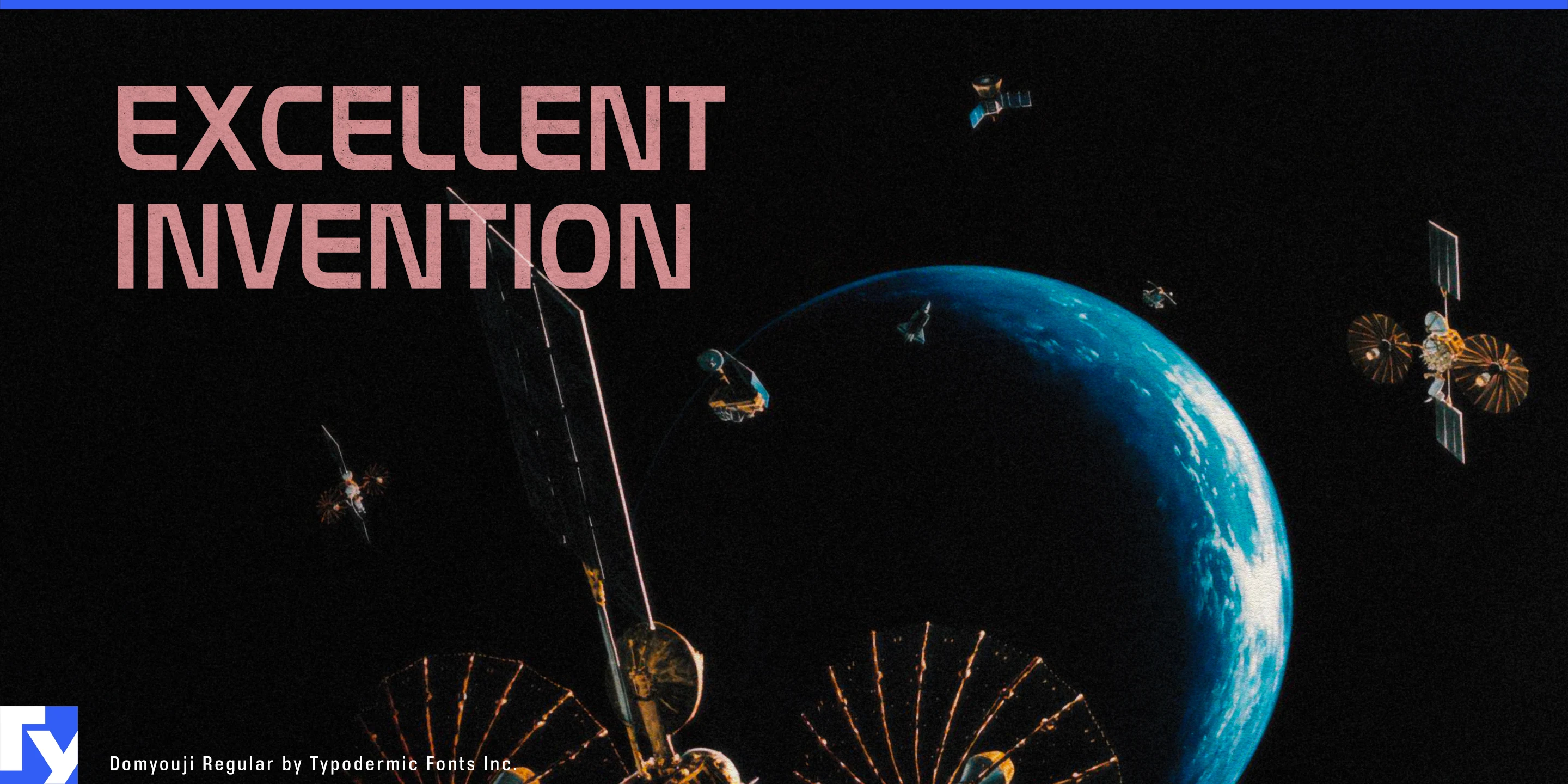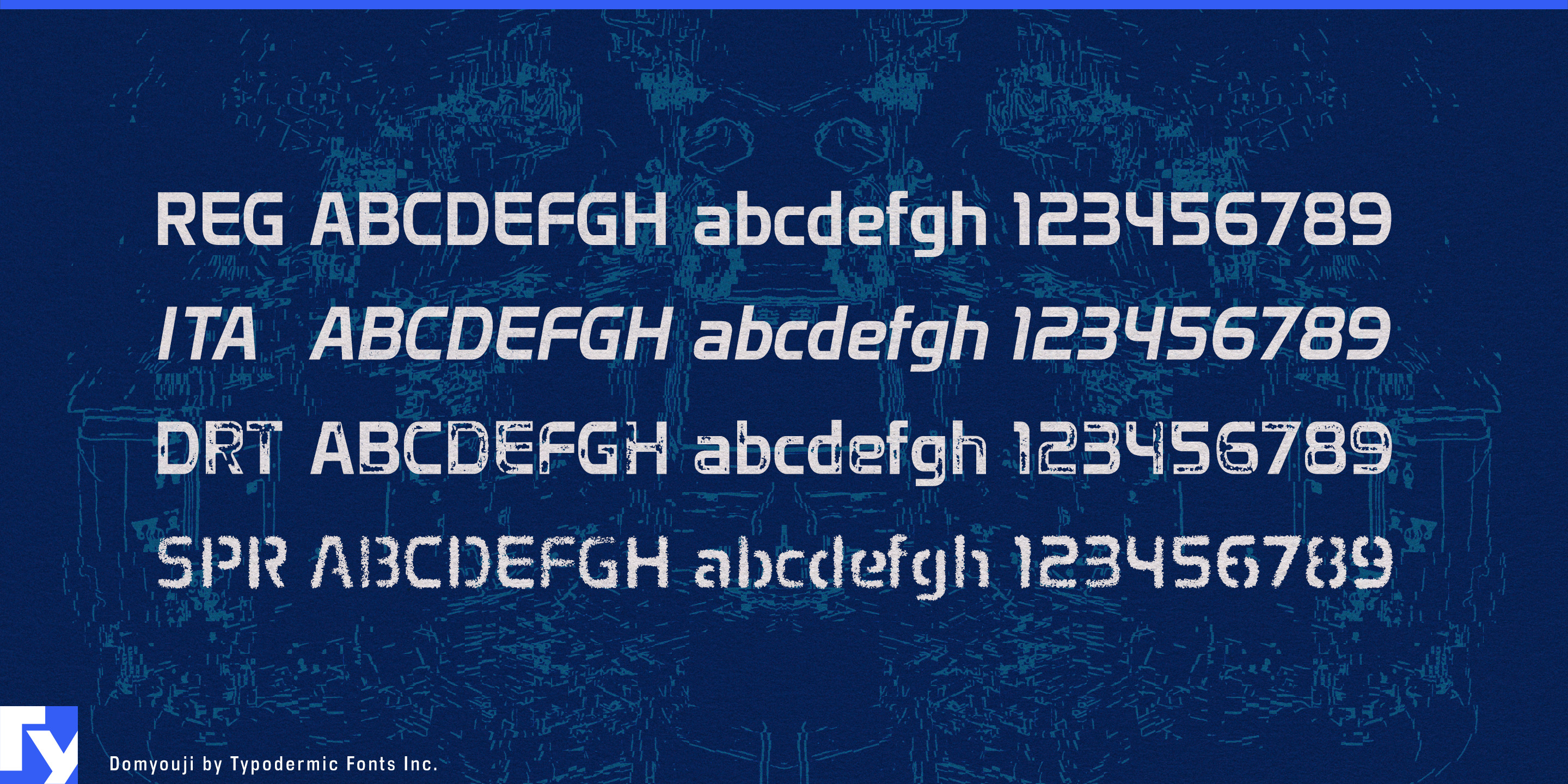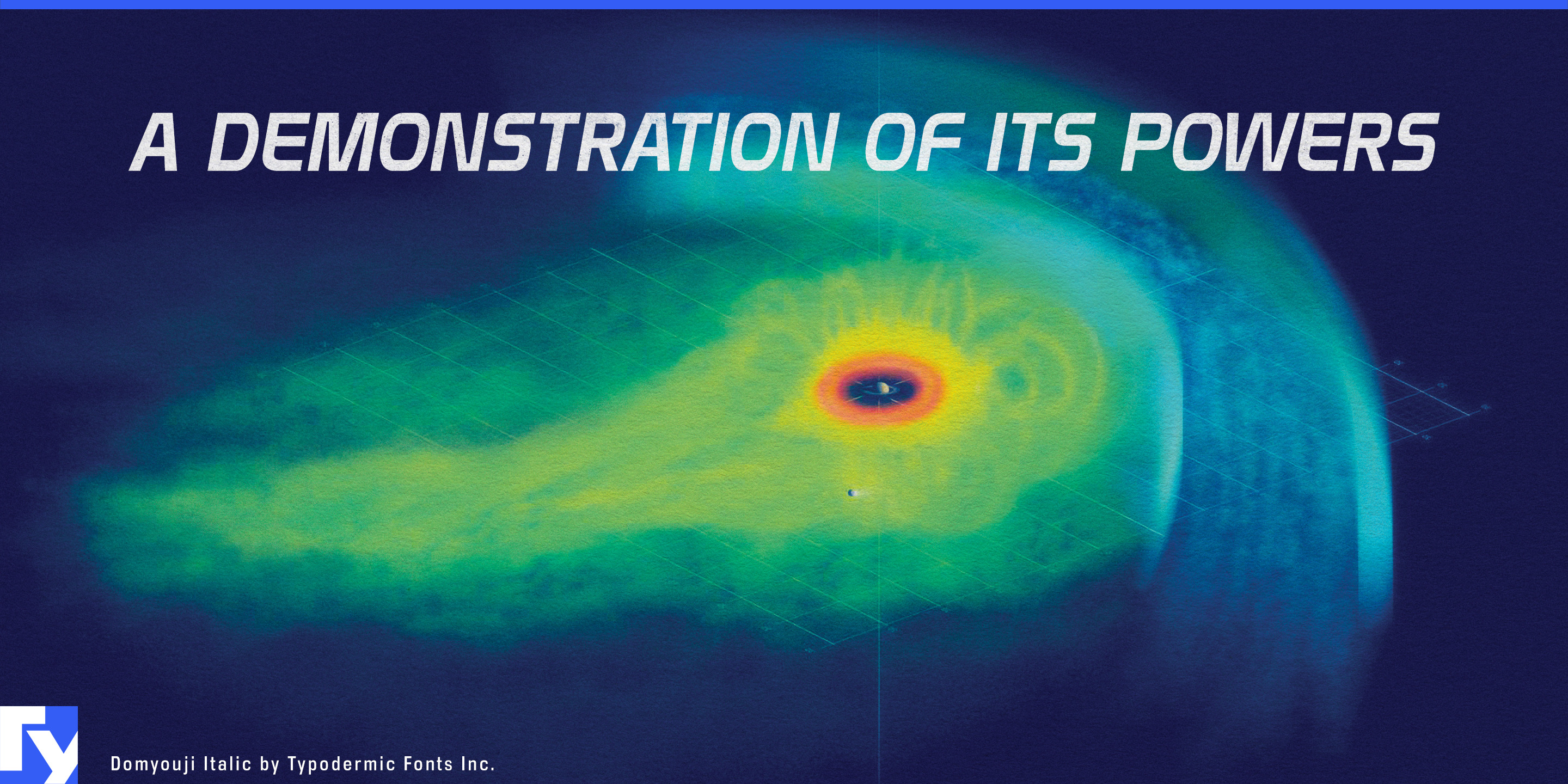
Domyouji
Technical environments rarely stay pristine. A system may begin as clean interface graphics and factory-applied labels, then reappear as worn equipment markings, battered wall graphics, or improvised field identification. Using unrelated clean and distressed typefaces can make those surfaces feel as though they came from different organizations.
Domyouji keeps the underlying design language consistent while changing its condition. The clean styles provide a compact, squared technical voice; Dirty carries the same forms into worn and degraded surfaces; Spraypaint pushes them toward manually applied markings. Rather than offering a conventional weight hierarchy, the family provides related states of one engineered alphabet.
That makes Domyouji particularly useful for science-fiction game environments. Space stations, exploration vehicles, cargo modules, maintenance bays, industrial colonies, and survival-oriented worlds need typography across control headings, machine designations, container labels, mission boards, warning placards, and environmental graphics. Clean lettering can represent the manufactured system; the distressed styles can show the same visual identity after years of use, damage, or field modification.
Industrial XR and training simulations extend the same idea into virtual machinery, maintenance scenarios, robot-training environments, digital twins, and operator simulations. Domyouji can carry training-module titles, equipment names, simulated panel headings, zone identifiers, and text applied directly to 3D assets without making every surface look freshly generated.
Virtual production and science-fiction set graphics present a similar continuity problem. A fictional manufacturer or institution may need typography on display screens, vehicle interiors, laboratory equipment, cargo containers, doors, prop decals, and scenic walls. Because the clean, worn, and sprayed styles share the same structure, those graphics can appear to belong to one organization even when some are pristine and others are damaged or improvised.
Immersive attractions, simulator environments, interactive control rooms, and futuristic museum installations can use the family in much the same way, moving from glowing screen headings to aged equipment labels and rough temporary markings without changing visual vocabulary.
Domyouji is most useful when the design problem is not simply finding a futuristic typeface, but maintaining one technical identity across surfaces that are clean, worn, damaged, or improvised.